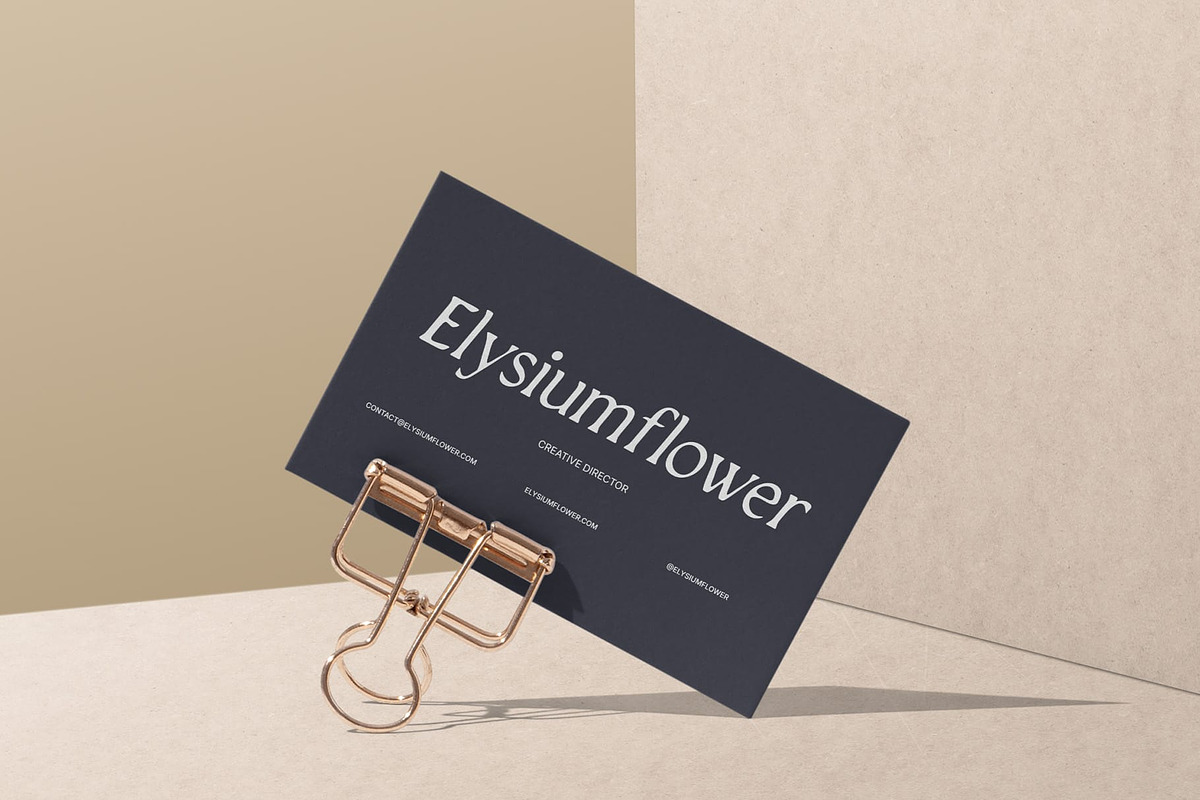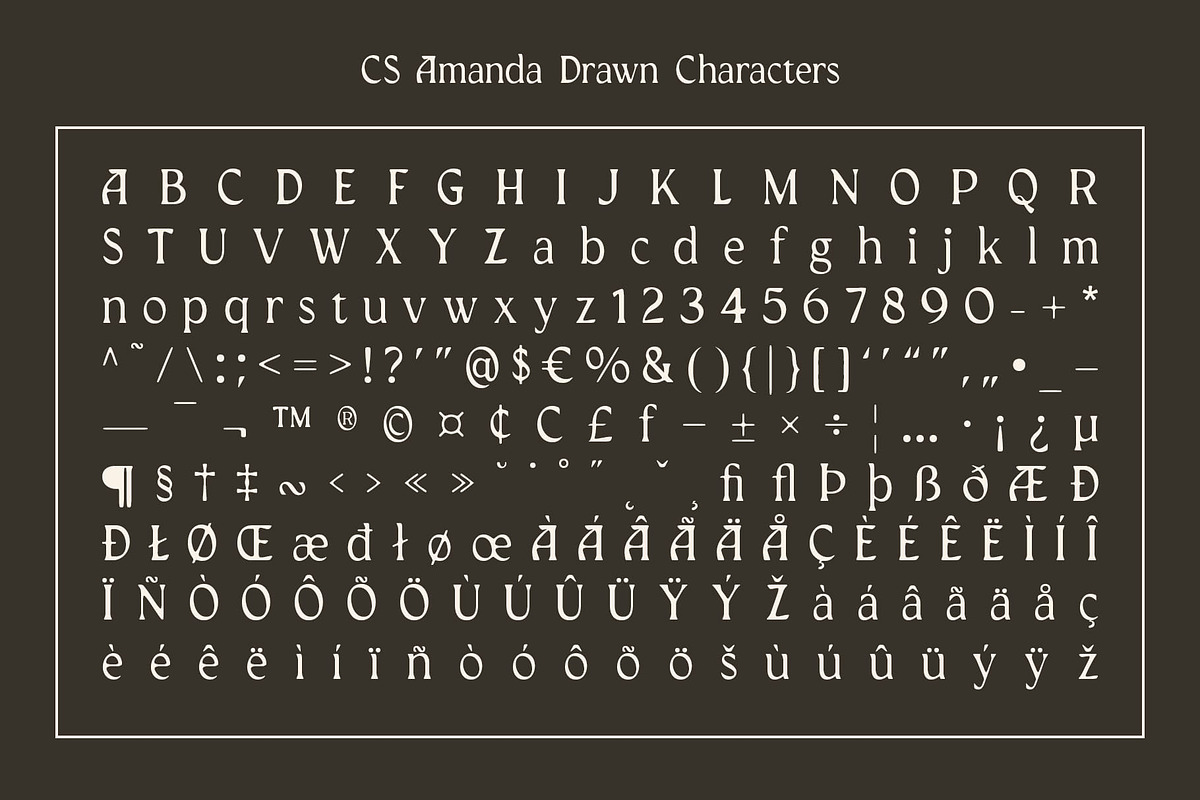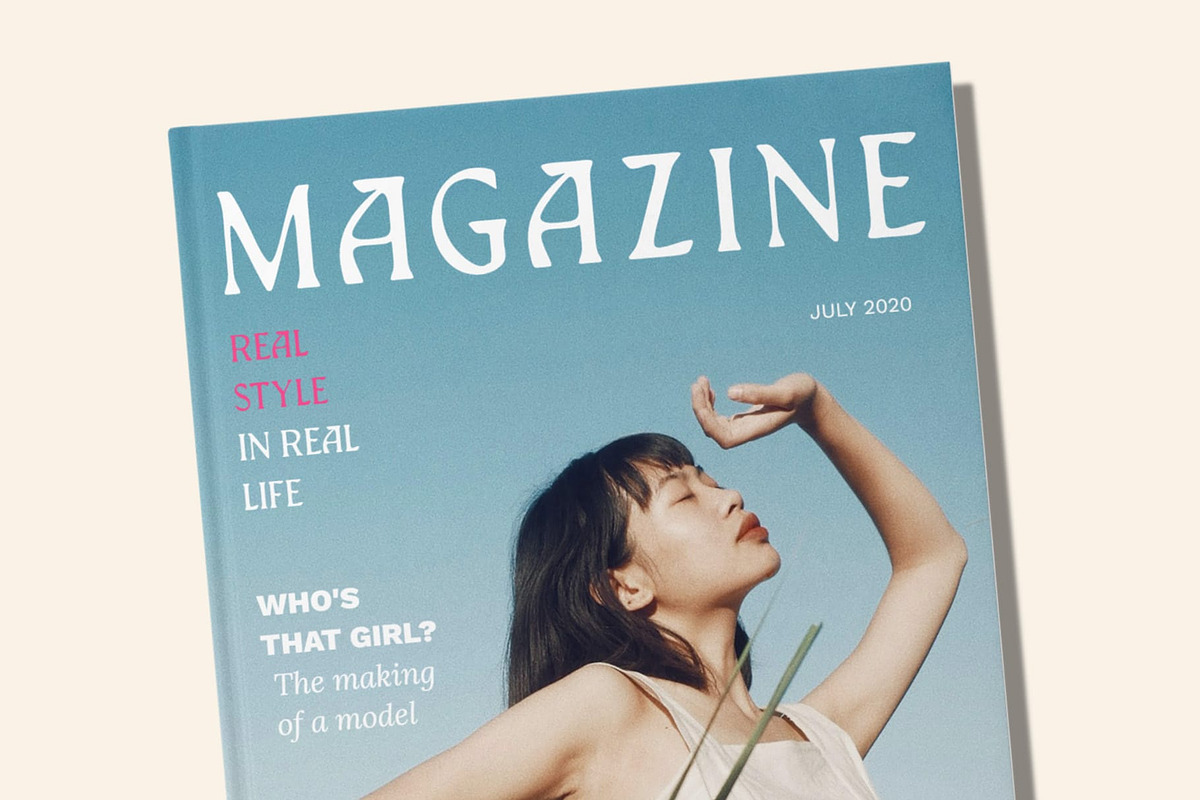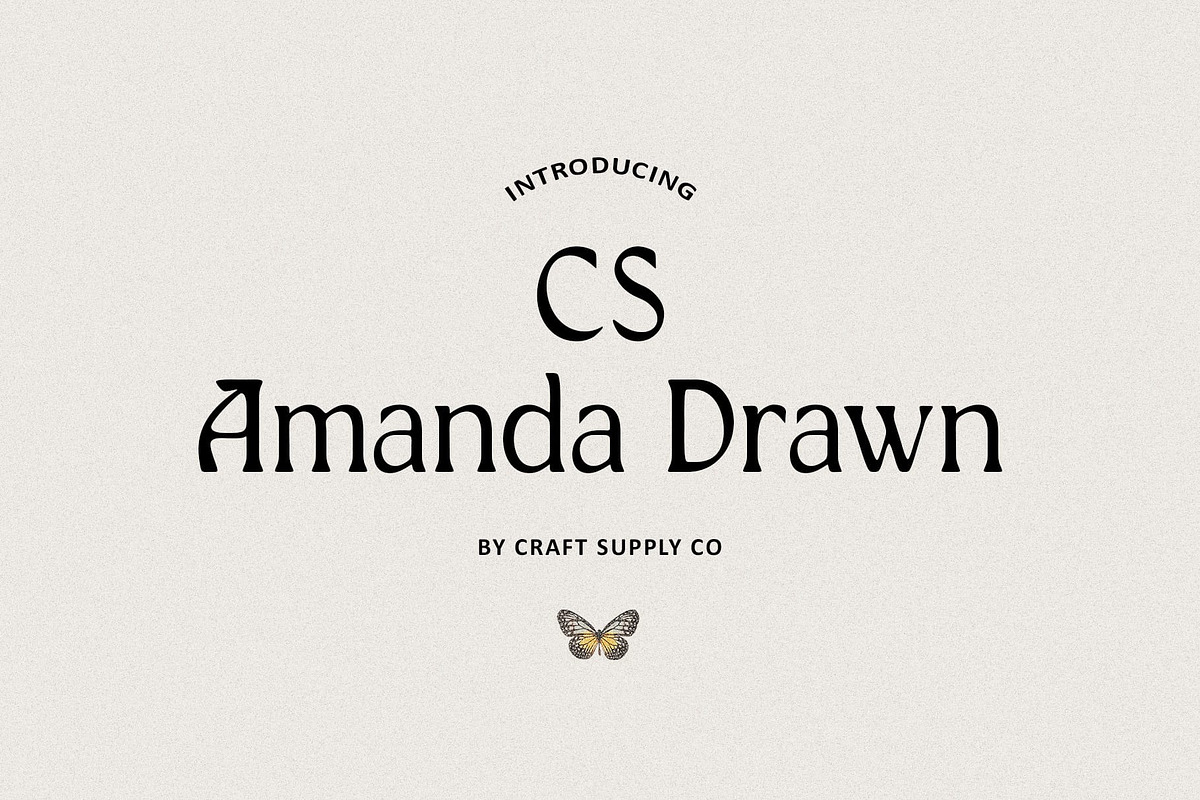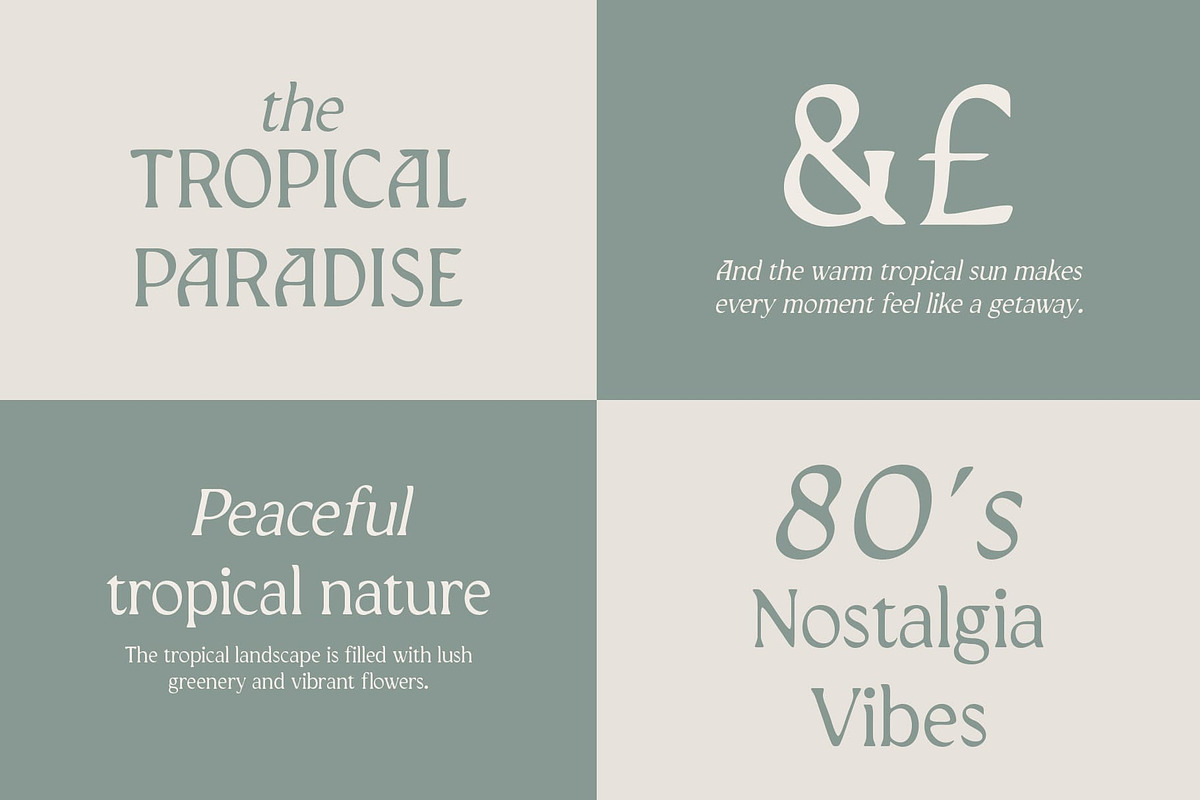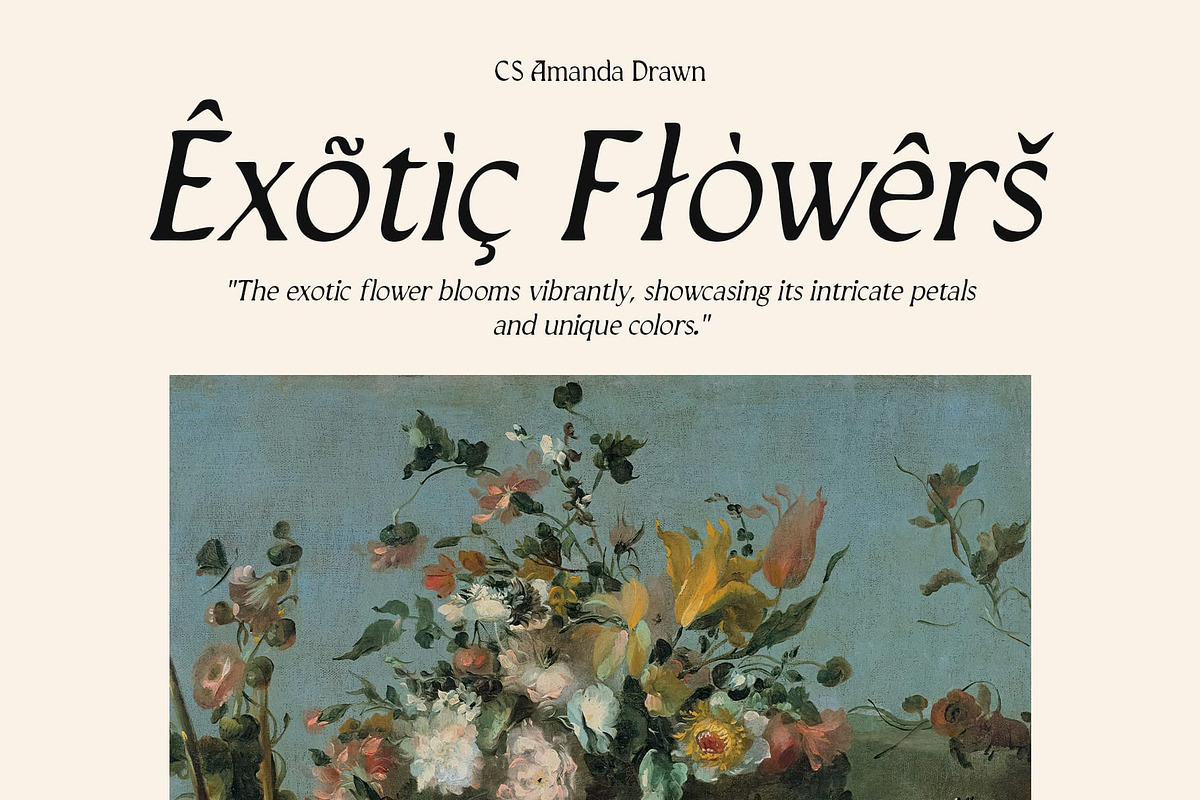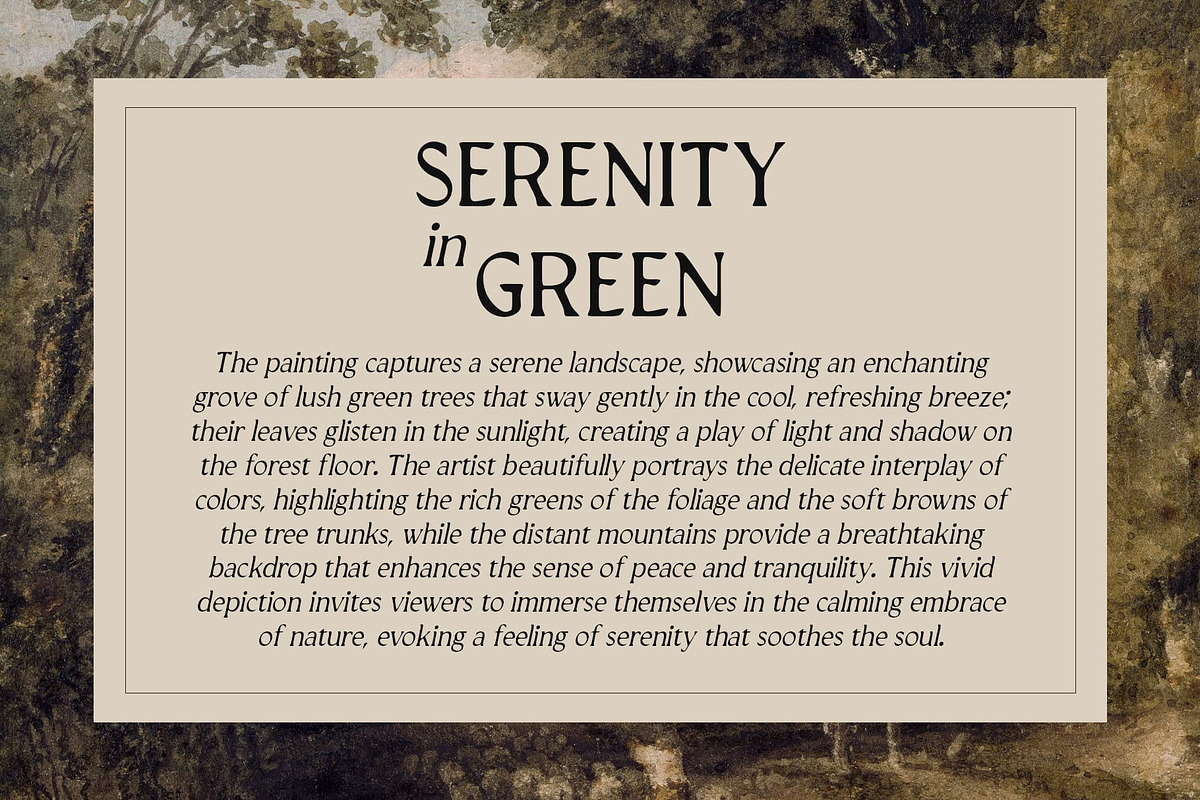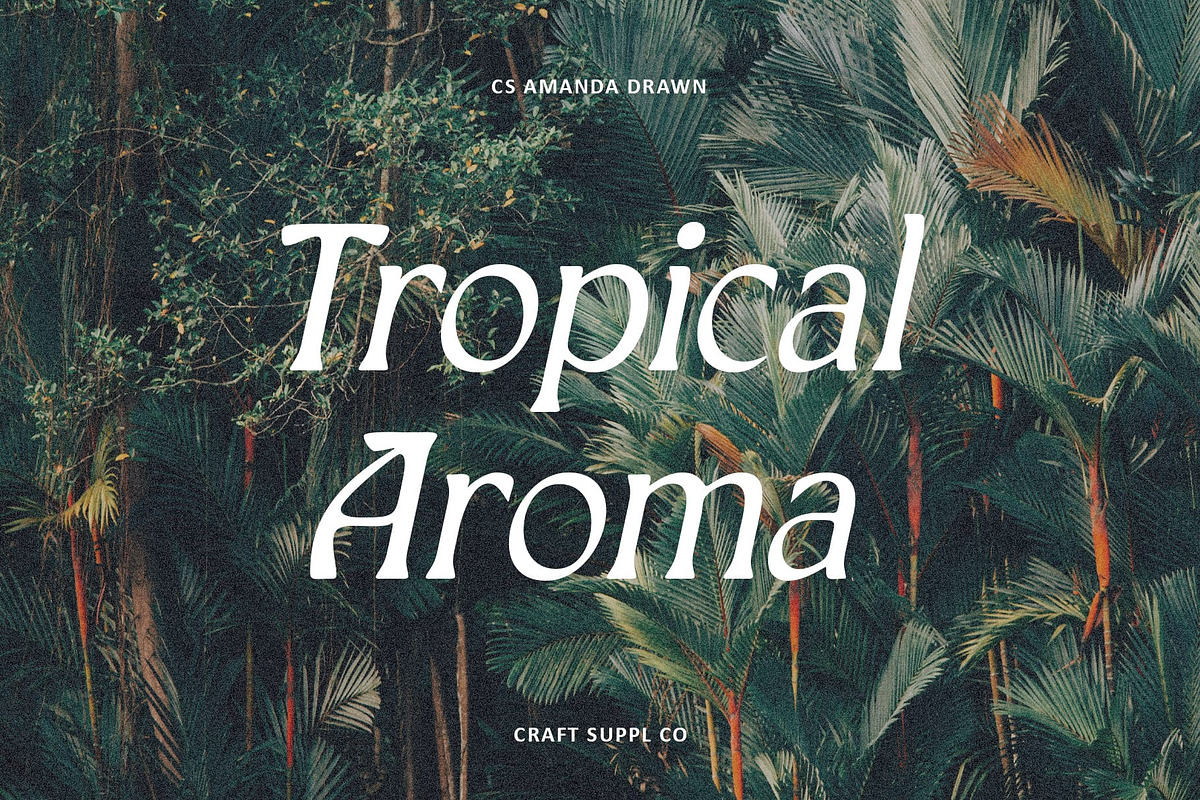
CS Amanda Drawn
CS Amanda Drawn – Elegant Modern Serif with a Hand-Drawn Touch
Refined Serif Design with Modern Elegance CS Amanda Drawn is a sophisticated modern serif font that exudes elegance and refinement. Its clean, well-balanced letterforms are designed with a sense of luxury and contemporary style, making it ideal for high-end projects. The font’s subtle yet striking details ensure that it stands out in any design, whether used for headlines, branding, or elegant display text.
Hand-Drawn Effect for Artistic Charm What sets this font apart is its unique hand-drawn effect, which adds an artistic and personal touch to each letter. The slight irregularities and organic strokes infuse the font with warmth and character, making it feel crafted with care and creativity. This blend of fine typography with handmade nuances creates a dynamic contrast, balancing precision with a human touch.
Sophisticated Style with Creative Flair This drawn font combines modern, clean lines with a touch of creative artistry, making it an ideal choice for designers seeking a stylish, elegant, and unique font. Its versatility allows it to shine in various applications, from exclusive branding to formal communications. This font adds a sense of sophistication while maintaining a personal, artistic feel—perfect for designs that aim to make a lasting impression with both style and substance.